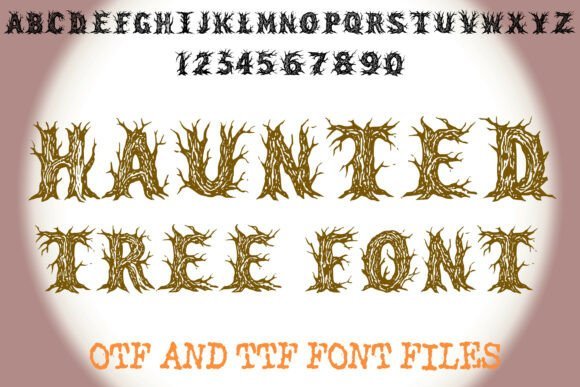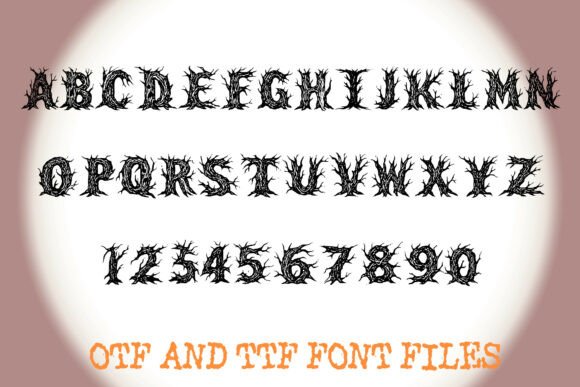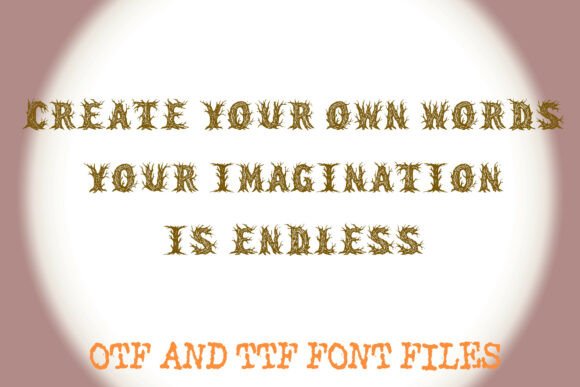
Get Ready to Branch Out into Spooky Design
As the sun sets on a crisp autumn evening, the shadows cast by twisted tree branches seem to take on a life of their own. It’s moments like these that spark creativity and inspire us to tap into the eerie atmosphere of the spooky season. And what better way to capture that essence than with a font that embodies the drama and mystery of the haunted woods?
Meet Haunted Trees Font, a stunning typographic creation that brings the intricate details of tree branches to life. Designed with the perfect blend of eeriness and sophistication, this font is a must-have for designers looking to create haunting Halloween designs, haunted house invitations, or fantasy artwork that transports viewers to a world of wonder.
With Haunted Trees Font, the possibilities are endless, and designers can unleash their creativity to craft truly unforgettable designs that leave a lasting impression. Whether you’re a seasoned pro or just starting out, this font is a valuable addition to any design arsenal, offering a unique and captivating way to express the magic of the spooky season.
Haunted Trees Font Key Features
- Font Style: A unique, handwritten font with a spooky and eerie feel, perfect for horror-themed designs.
- Unique Characteristics: The font features a mix of bold and delicate strokes, creating a sense of depth and dimensionality, which adds to its haunting effect.
Designer Review: Haunted Trees Font
As a designer, I’ve had the chance to experiment with the Haunted Trees Font, and I must say it’s a unique addition to any project. Here are my thoughts on what works well and what doesn’t.
- Spooky Atmosphere – The font effectively captures a spooky atmosphere, making it perfect for Halloween-themed projects or any other spooky content.
- Highly Expressive – The font is highly expressive, allowing designers to convey a wide range of emotions and moods.
- Playful yet Edgy – The font’s playful yet edgy vibe makes it suitable for a variety of projects, from kids’ content to edgy branding.
- Limited Legibility – The font’s unique design can make it difficult to read, especially at smaller sizes.
- Limited Character Set – The font’s character set is limited, which may not be suitable for projects requiring a wide range of characters.
The Haunted Trees Font is a great addition to any project that requires a spooky or edgy vibe. While it may have some limitations, its unique design and high expressiveness make it a valuable asset for designers looking to add some personality to their work.
The Haunted Trees Font is ideal for Halloween-themed designs, spooky invitations, and eerie book covers. It can also be used for creative typography in fashion branding and mysterious marketing materials.
To get the most out of the Haunted Trees Font, use it in conjunction with other spooky elements, such as creepy textures and haunted illustrations. Experiment with different font sizes and styles to create a haunting atmosphere.